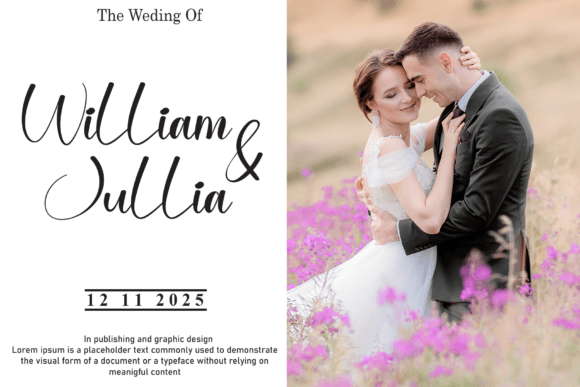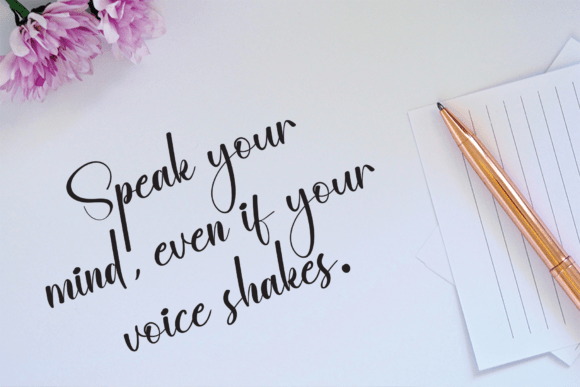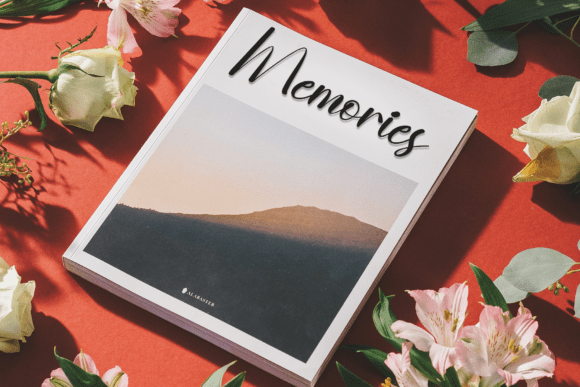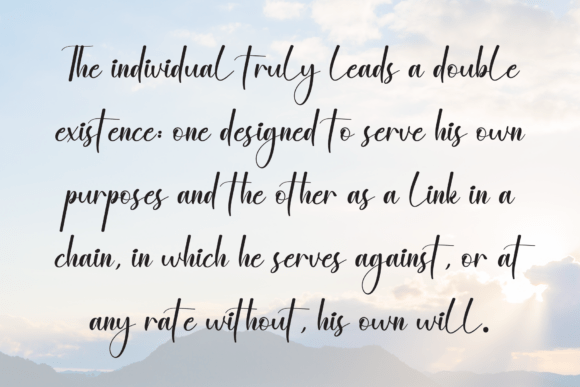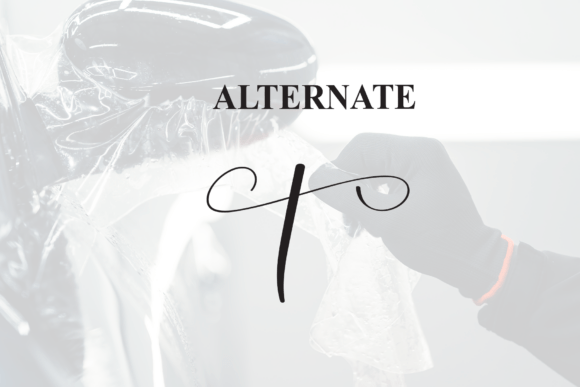
Discover the Elegance of Coating Font: Elevate Your Designs with Modern Script Style
In the realm of typography, the right font can transform your design from ordinary to extraordinary. For those seeking a blend of modernity, elegance, and approachability, the Coating font stands out as an exceptional choice. This article delves into the unique features of the Coating typeface, its versatility, and how it can enhance various design projects, from automotive branding to professional portfolios and beyond.
The Essence of Coating Font
The Coating font is a masterpiece of modern, casual script design. Its sleek and polished appearance makes it an ideal selection for a wide range of applications, including digital and print media. One of the defining characteristics of this typeface is its consistent stroke weights, which contribute to a harmonious and balanced look. Additionally, the elegant, elongated connectors in the Coating font ensure a seamless reading experience, making it not only visually appealing but also highly legible.
What sets the Coating typeface apart is its incredible versatility. It’s perfect for designs that require a touch of personality without compromising on clarity. For instance, in automotive branding, a sector that demands a blend of sophistication and dynamism, the Coating font can add a distinctive flair. Similarly, professional portfolios and modern business cards can benefit from its elegant appearance, making them stand out in a crowded marketplace.
Pairing and Compatibility
One of the key advantages of the Coating font is its compatibility with a wide range of typography styles. It pairs excellently with bold, geometric fonts, creating a striking contrast that can elevate your design. This versatility in pairing makes the Coating typeface a valuable tool for designers, allowing for endless creative possibilities. Whether you’re working on a product label, a sleek website header, or any other design project, this font provides a refined aesthetic that feels both approachable and high-end.
The Coating font is PUA-encoded, a feature that offers designers effortless access to all glyphs, swashes, and alternate characters. This encoding ensures that you can explore the full creative potential of the font, customizing it to fit the specific needs of your project. With PUA encoding, you can easily access and use the additional design elements, making the design process more efficient and enjoyable.
Applications of Coating Font
The applications of the Coating font are vast and varied. Here are a few examples where this typeface can make a significant impact:
- Automotive Branding: The modern and sleek appearance of the Coating font makes it an excellent choice for car logos, advertisements, and promotional materials.
- Professional Portfolios: Add a touch of elegance and sophistication to your professional portfolio with the Coating typeface, making it more engaging and memorable.
- Business Cards: Stand out in professional settings with modern business cards that feature the Coating font, offering a perfect blend of personality and professionalism.
- Product Labels: For product labels, the Coating font provides a refined and high-end look, making your products more appealing to potential customers.
- Web Design: Enhance your website’s header and other design elements with the Coating typeface, creating a cohesive and attractive online presence.
The Coating font is a versatile and elegant typeface that can elevate a wide range of design projects. Its modern, casual script style, combined with its consistent stroke weights and elegant connectors, offers a seamless reading experience and a refined aesthetic. Whether you’re a designer looking for a font that pairs well with bold typography or a craftsperson seeking to add a touch of sophistication to your work, the Coating font is an excellent choice. With its PUA encoding for easy access to glyphs and swashes, this font is not only beautiful but also practical for a variety of applications. Discover the potential of the Coating font and take your designs to the next level.